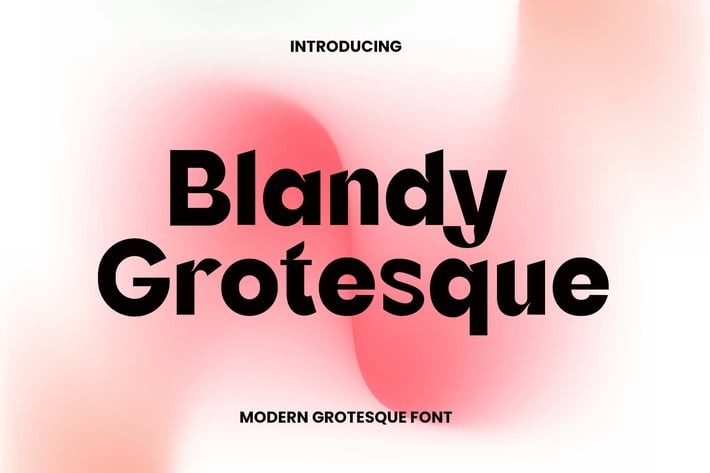
Blandy Modern Grotesque Sans Serif Font
Introducing our new product the name is Blandy Modern Grotesque Sans Serif Font. Blandy Modern Grotesque Sans Serif Font that feels beautiful classy, elegant, and modern. This font is perfectly suited for a wide variety of projects, such as signature, stationery, logo, wedding, typography quotes, magazine or book covers, website headers, clothing, branding, packaging design, and more. Also, fashion-related branding or editorial design displays both masculine and feminine qualities.